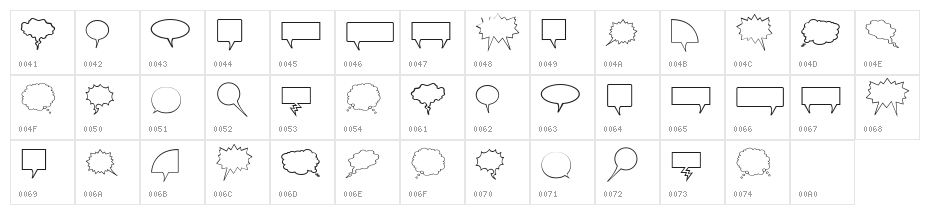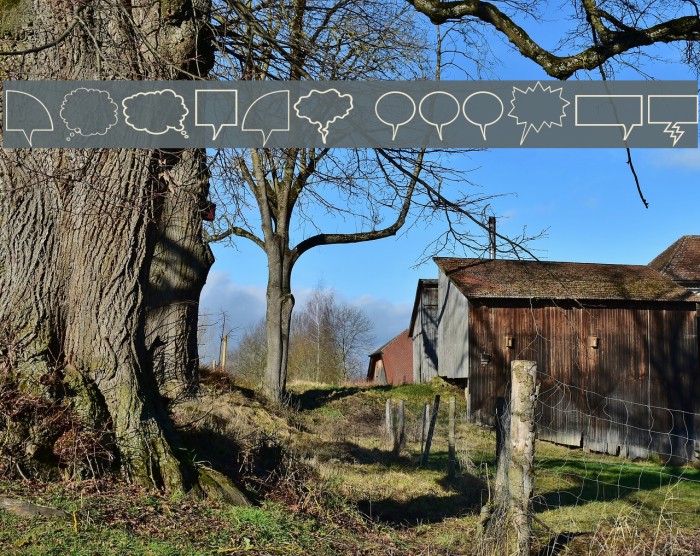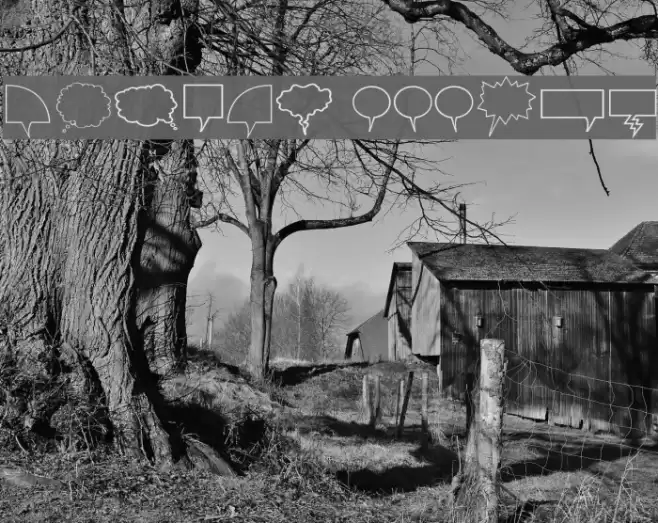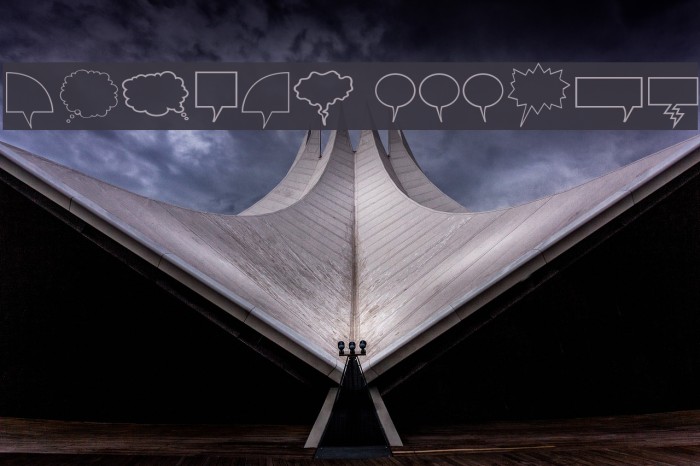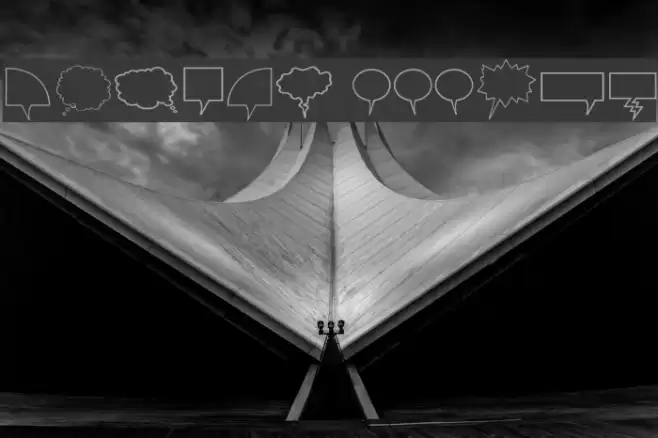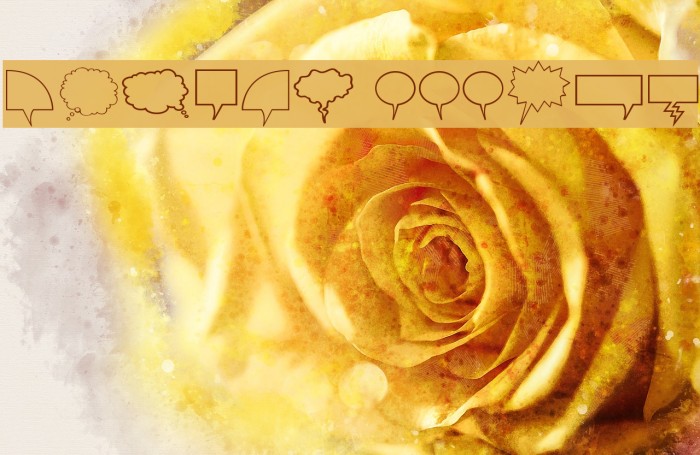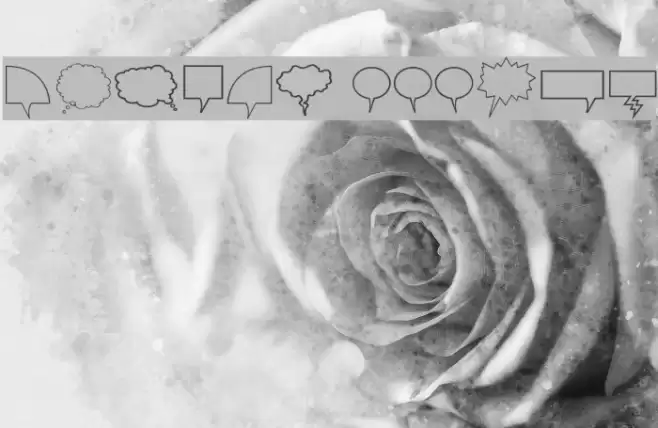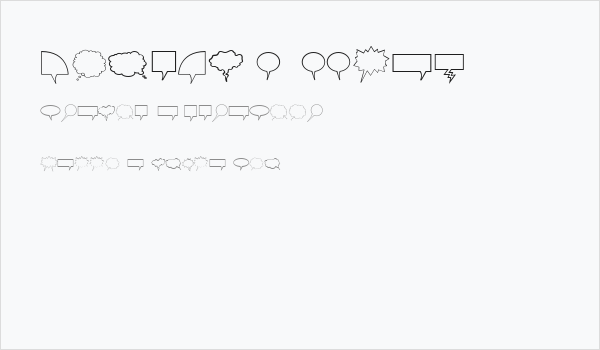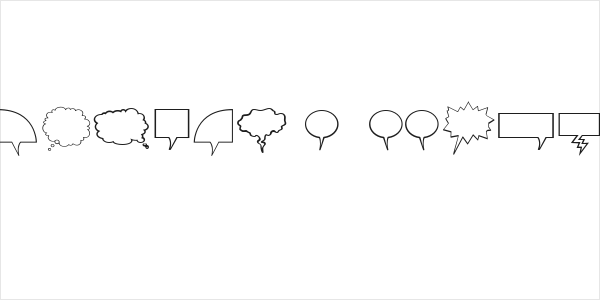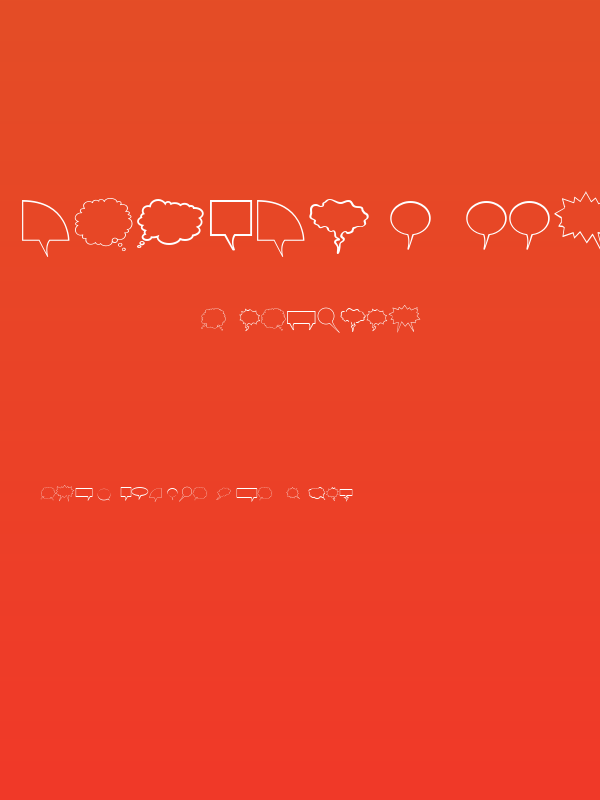
Komika Bubbles Font
Komika Bubbles Description
A collection of outlined comic-style speech and thought bubbles, including rectangular, oval, spiked, and cloud-like shapes, each with clean, uniform black lines and no fill.
| Overall Style | Playful, Comic, Decorative |
| Use Case | Speech bubbles for comics, graphic design elements, playful layouts. |
| Proposed Projects | Comic books, graphic novels, children's books, playful posters, educational materials, digital stickers. |